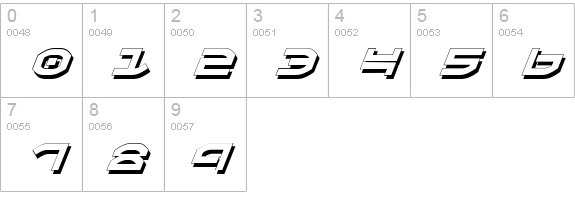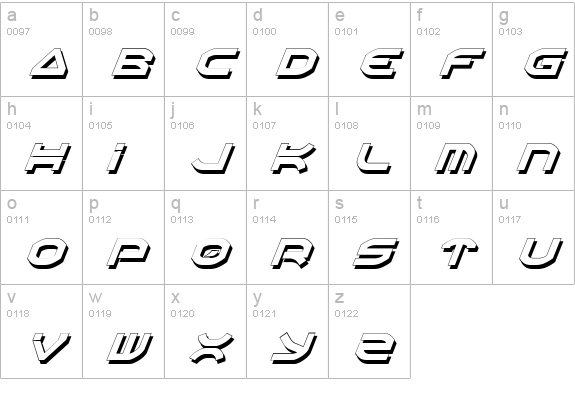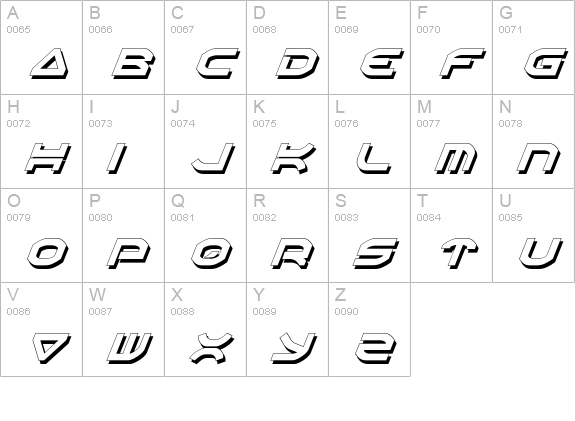
Oberon Shadow Italic is a distinctive, italic variant in the Oberon typeface family \xE2\x80\x94 well suited to design and typography projects.
Oberon Shadow Italic is a beautifully crafted font that exudes elegance and sophistication. Its sleek and stylish design is perfect for adding a touch of modern flair to any project. The italicized version of the font adds a sense of dynamism and movement, making it ideal for use in headings, titles, and other eye-catching text elements. What sets Oberon Shadow Italic apart is not only its striking appearance, but also the fact that it is available for free download at FontsMarket.com. This means that you can easily access this premium font without having to break the bank. Whether you're a designer looking to elevate your creations or a business owner in need of a fresh look for your branding, Oberon Shadow Italic is sure to impress with its versatility and charm. Download your free copy today and let Oberon Shadow Italic take your designs to the next level.